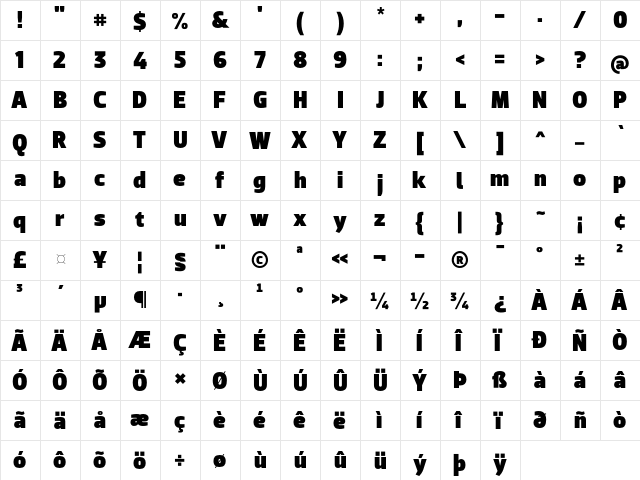
Dobra Black
| Foundry | Dino dos Santos _DSType |
| Designer | Dino dos Santos |
Design Context for Dobra Typeface
Dobra is a composed and adaptable typeface that performs quietly and consistently across a wide range of design contexts.